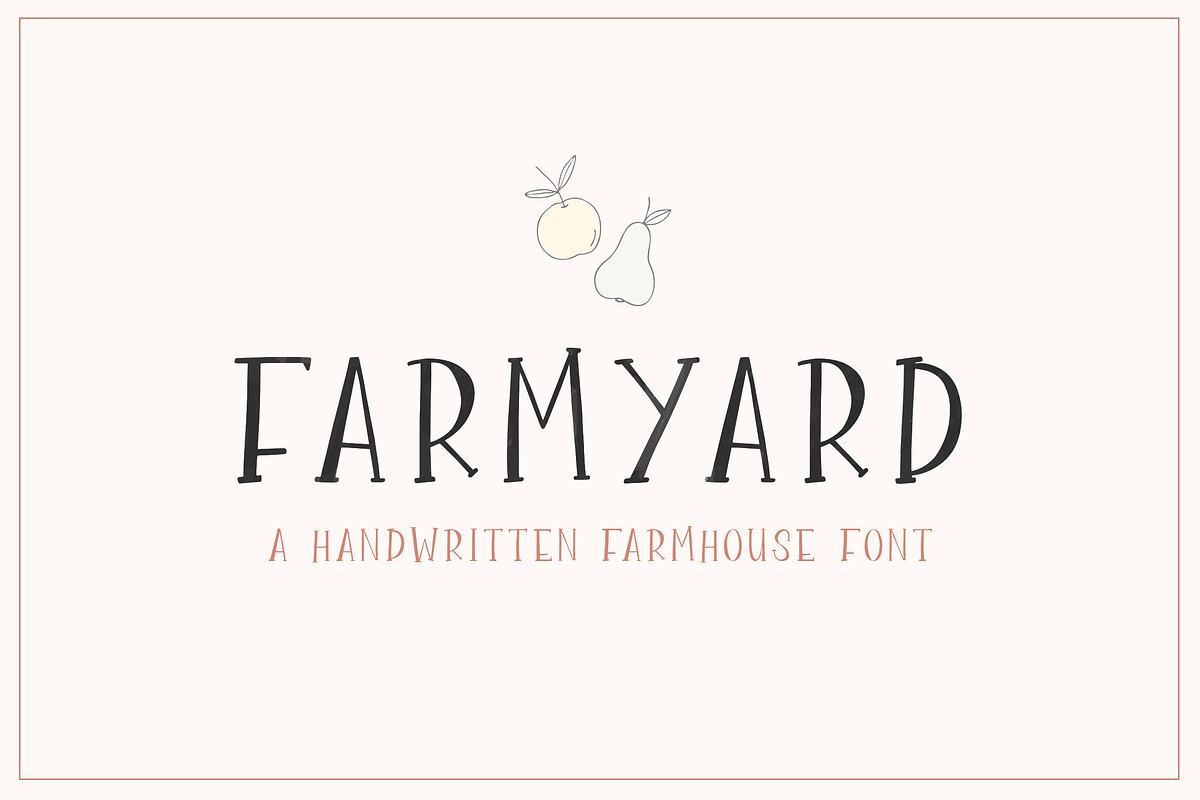
Farmyard Font Free Download is a playful and rustic typeface designed to capture the charm of rural life and country-inspired designs. With its hand-crafted, slightly imperfect strokes, this font is perfect for farm-related branding, rustic invitations, food packaging, and any project that celebrates the warmth and simplicity of the countryside.
Its casual and approachable design gives your typography a down-to-earth feel, ideal for organic, farm-to-table brands, vintage-style posters, and playful farm-themed designs.